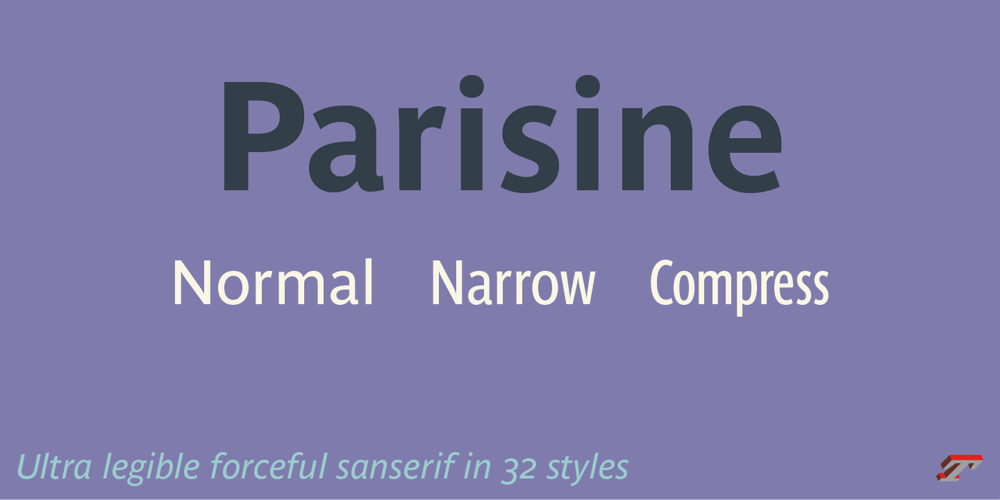
Parisine Std Font Family was designed by Jean François Porchez and published by Typofonderie. Parisine Std contains 32 styles and family package options. Ultra legible forceful sanserif in 32 fontsParisine was born as official parisian métro signage typeface. This family of typefaces has become over years one of the symbols of Paris the Johnston for the London Underground or the Helvetica for the New York Subway. The Parisine was created to accompany travelers in their daily use: ultra-readable, friendly, human while the context is a priori hostile.Meanwhile, Parisine is now a workhorse and economical sanserif font family, highly legible, who can be considered as a more human alternative to the industrial-mechanical Din typeface family. More human, but not fancy: No strange “swashy” f, or cursive v, w etc. on the italics, to keep certain expected regularity, important for information design, signages, and any subjects where legibility, sobriety came first. Born as signage typeface family, the various widths and weights permit a wider range of applications. In editorial projects, the Compress version will enhances your headlines, banners, allowing ultra large settings on pages. The Narrow version will be useful as direct compagnon mixed to standard width version when the space is limited.The various Parisine typeface subfamiliesParisine is organised in various widths and subsets, from the original family Parisine, Parisine Gris featuring lighter versions of the usual weights and italics, Parisine Clair featuring extra light styles, to Parisine Sombre with his darker and extremly black weights as we can seen in Frutiger Black or Antique Olive Nord. Many years of adjustments were necessary to refine this complex family.Initially, Parisine was designed by Jean François Porchez in 1996 for Ratp to solely fulfil the unique needs of signage legibility. Parisine remain the official corporate typeface of the public transport in Paris, the worldwide capital for tourism, and now integral part of the French touch.Directly related, Parisine Office was initially created for Ratp’s internal and external communication, Parisine Office is available at Typofonderie too. Not connected with Ratp and public transports, Parisine Plus was created as an informal version of Parisine.Parisine: Introducing narrow and compressed familiesAbout Parisine helps Parisians catch the right busObservateur du design star of 2007